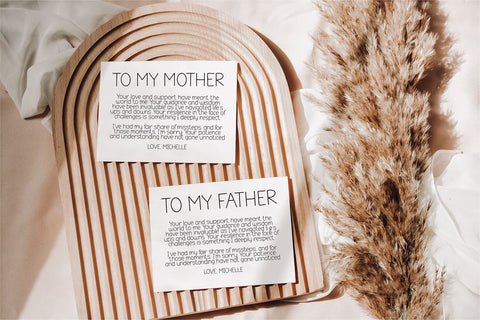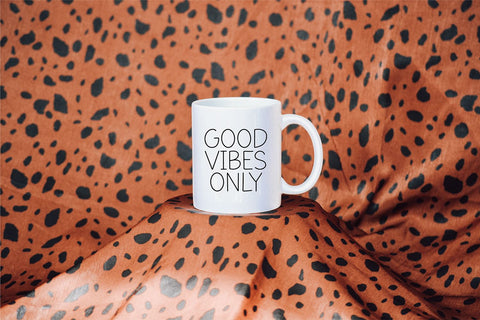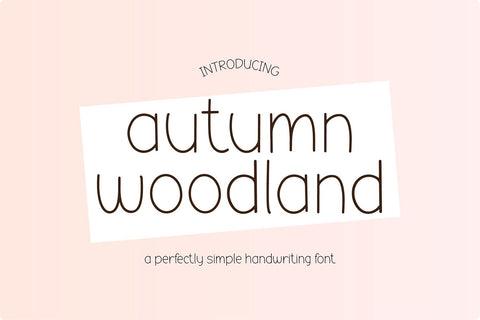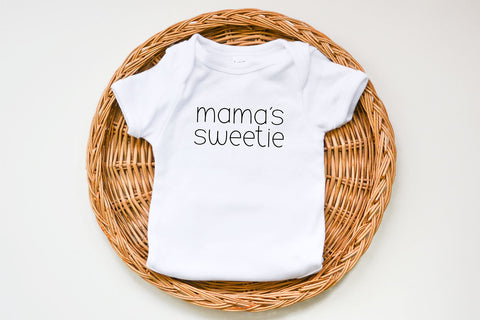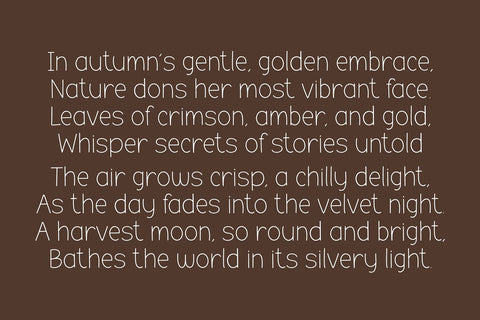
Autumn Woodland Handwriting Font
"Autumn Woodland" skinny simple handwriting font.
Autumn Woodland is a simple and cute handwriting font that is perfect for social media or goodnotes or digital planning. Use it for branding, crafts for decor, invitations, and more! This font includes upper and lowercase glyphs, numbers, basic punctuation marks.